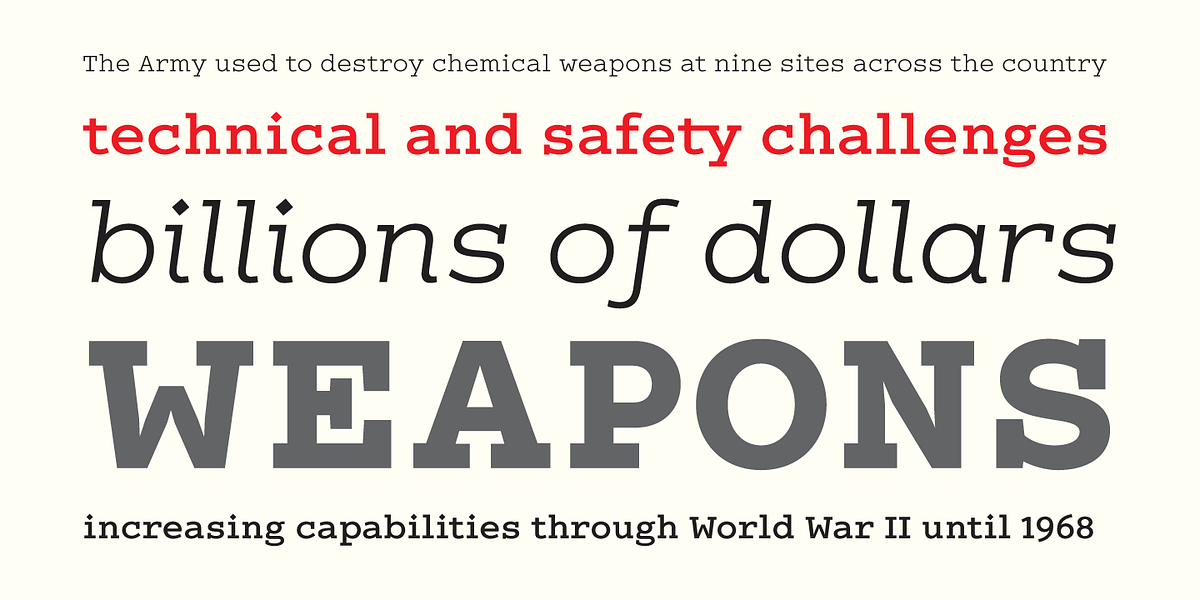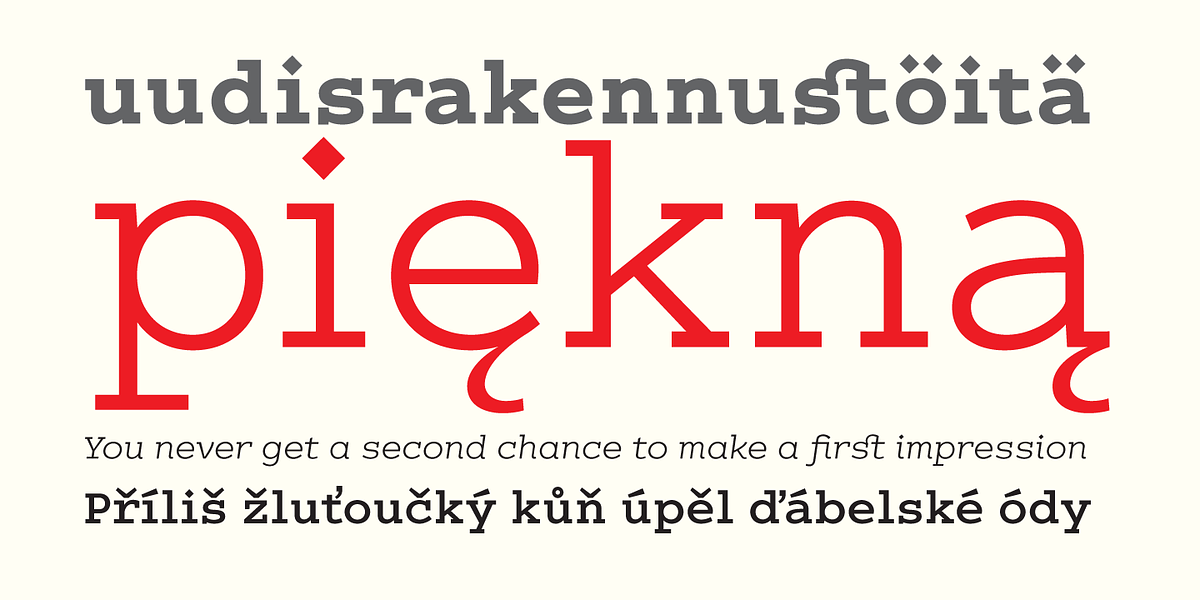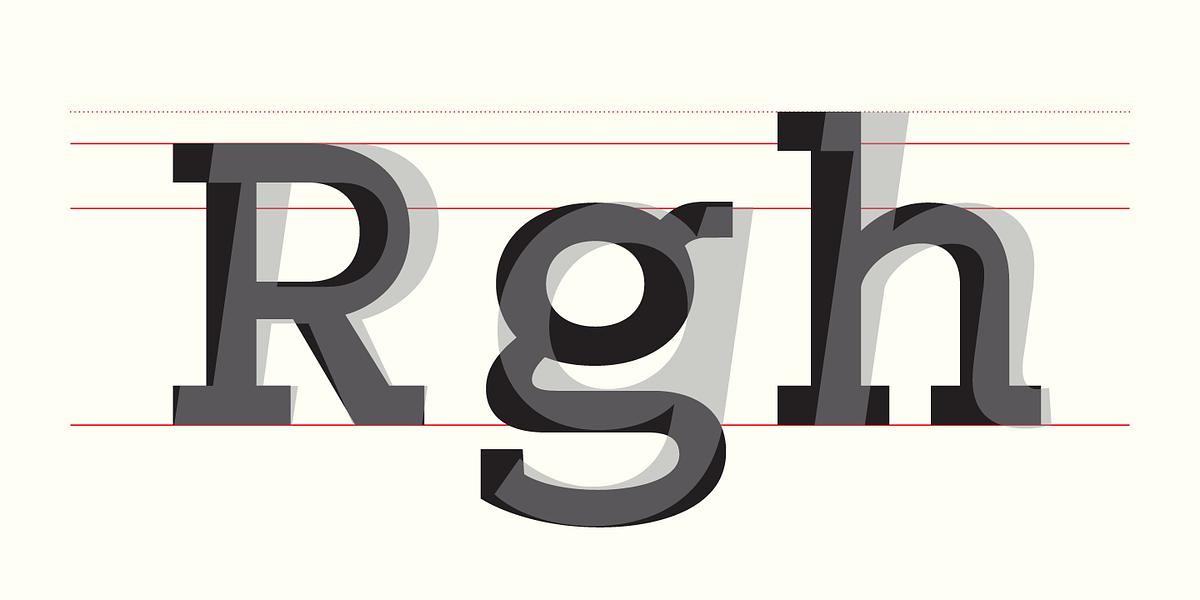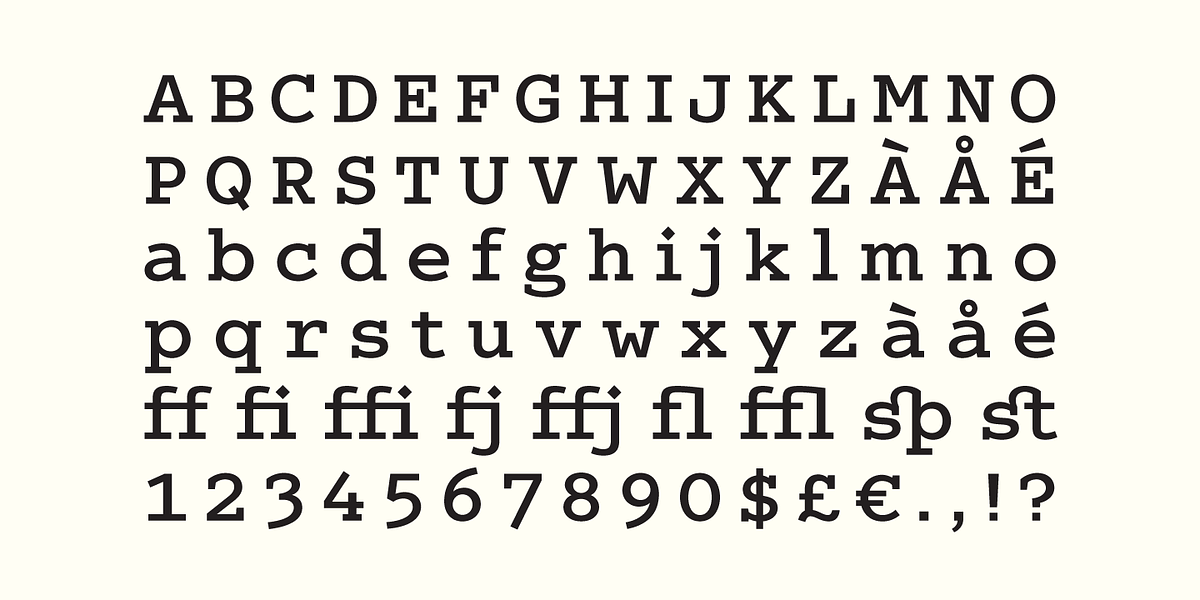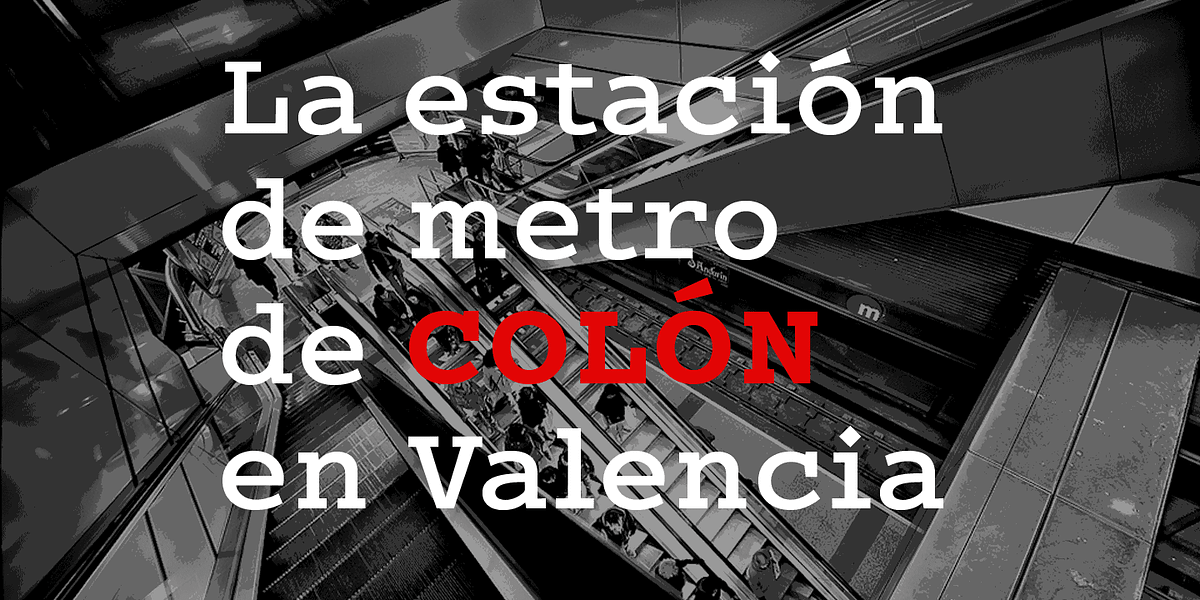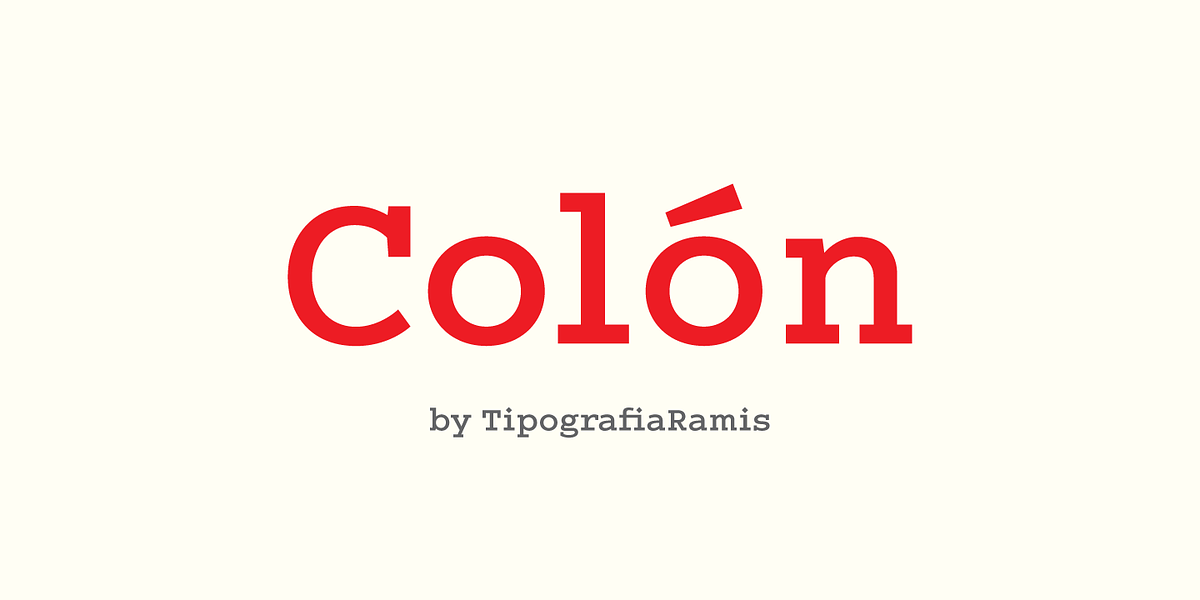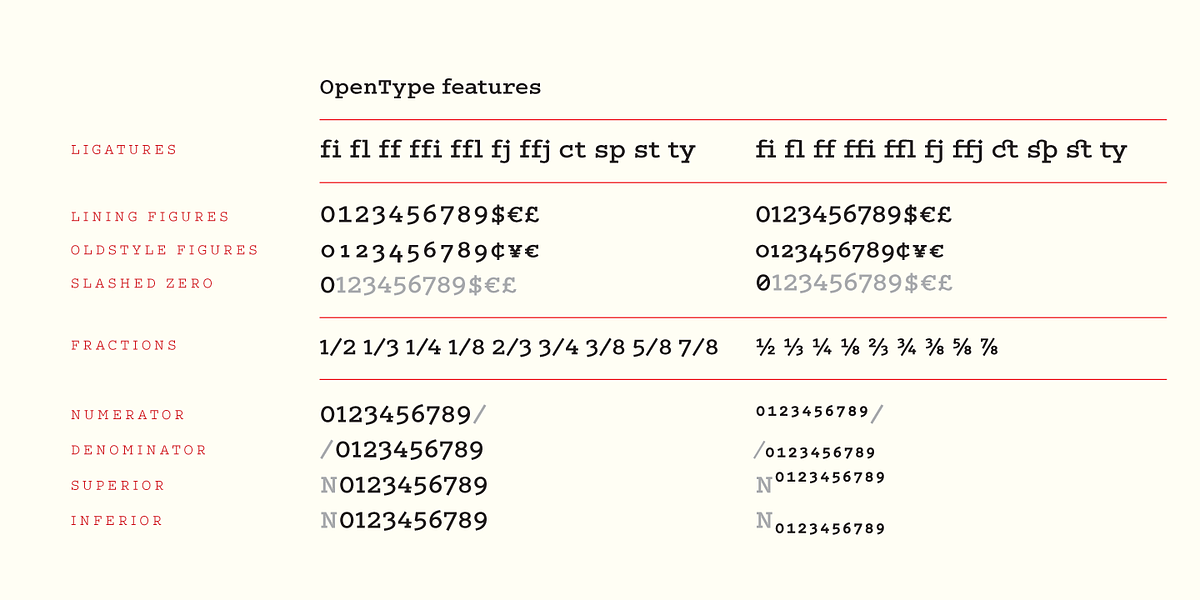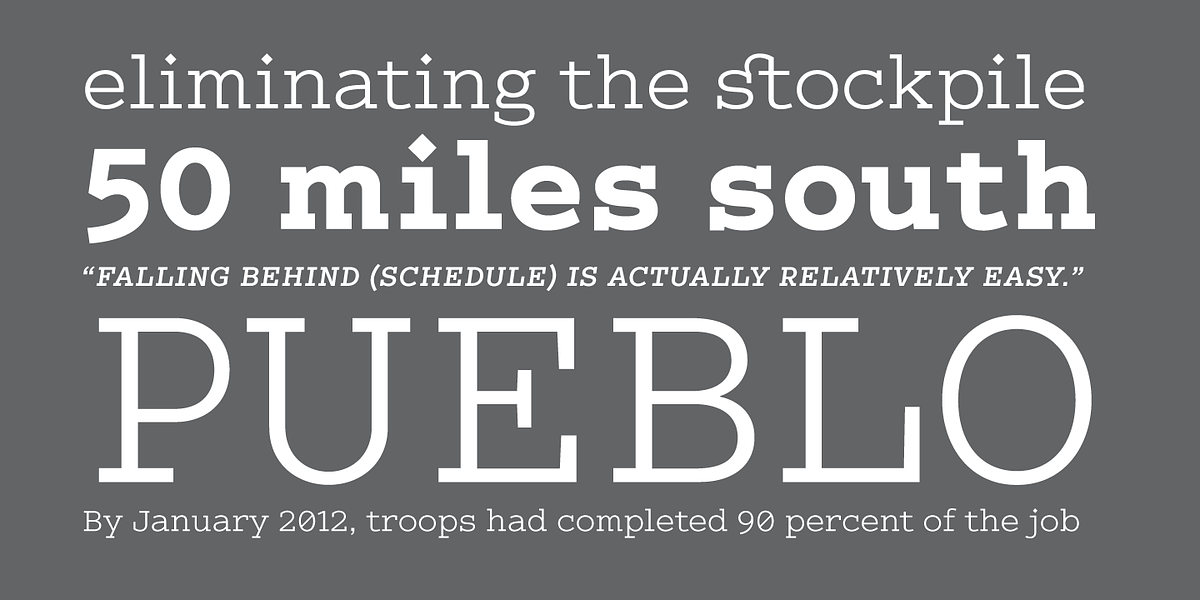
Colón
Colón is a slab serif typeface family with three weights and matching italics. It was designed with the nostalgia for the typewriter aesthetic in mind. The extended Colón family includes a monospaced sub-family called Colón Mono. Colón supports most Latin languages and comes with various OpenType features like proportional/tabular figures, slashed zero, ligatures, and fractions.